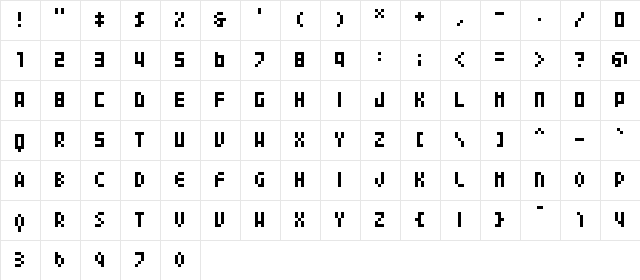
04b24 Regular
Design Context for 04b24 Typeface
04b24 takes a measured approach to typography — its balanced proportions and neutral character make it a reliable workhorse for both digital and print work.